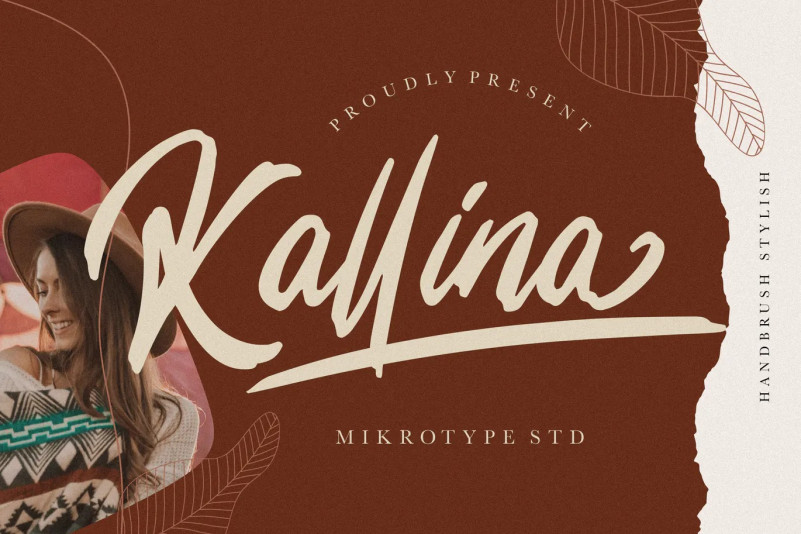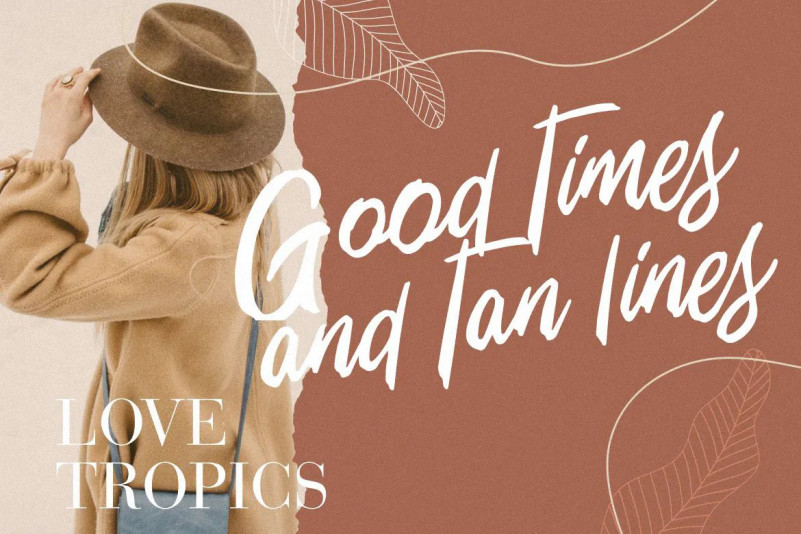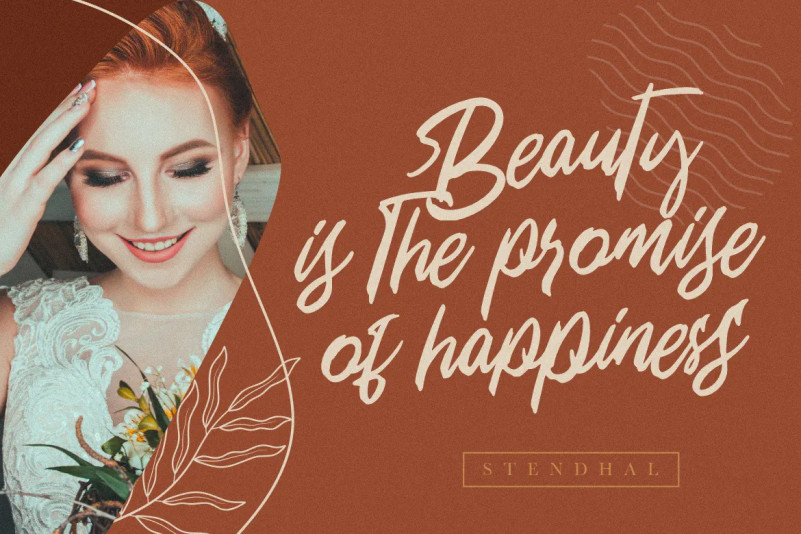
Kallina Font
Introducing Kallina Handbrush Stylish – A handbrush stylish script typeface. This font will looks awesome and amazing in many way to your latest project. The font is perfect for for movie title, logo, blogging, brand identity, book title, social media, branding, wedding invites, cards or simply use it in your next design project and suitable to use for many occasion.